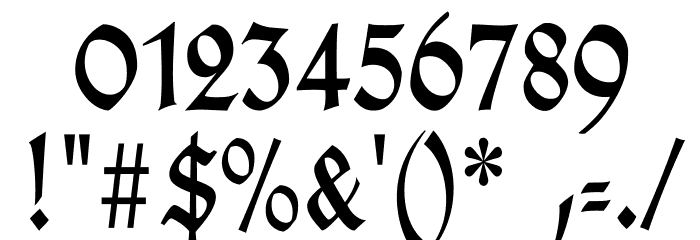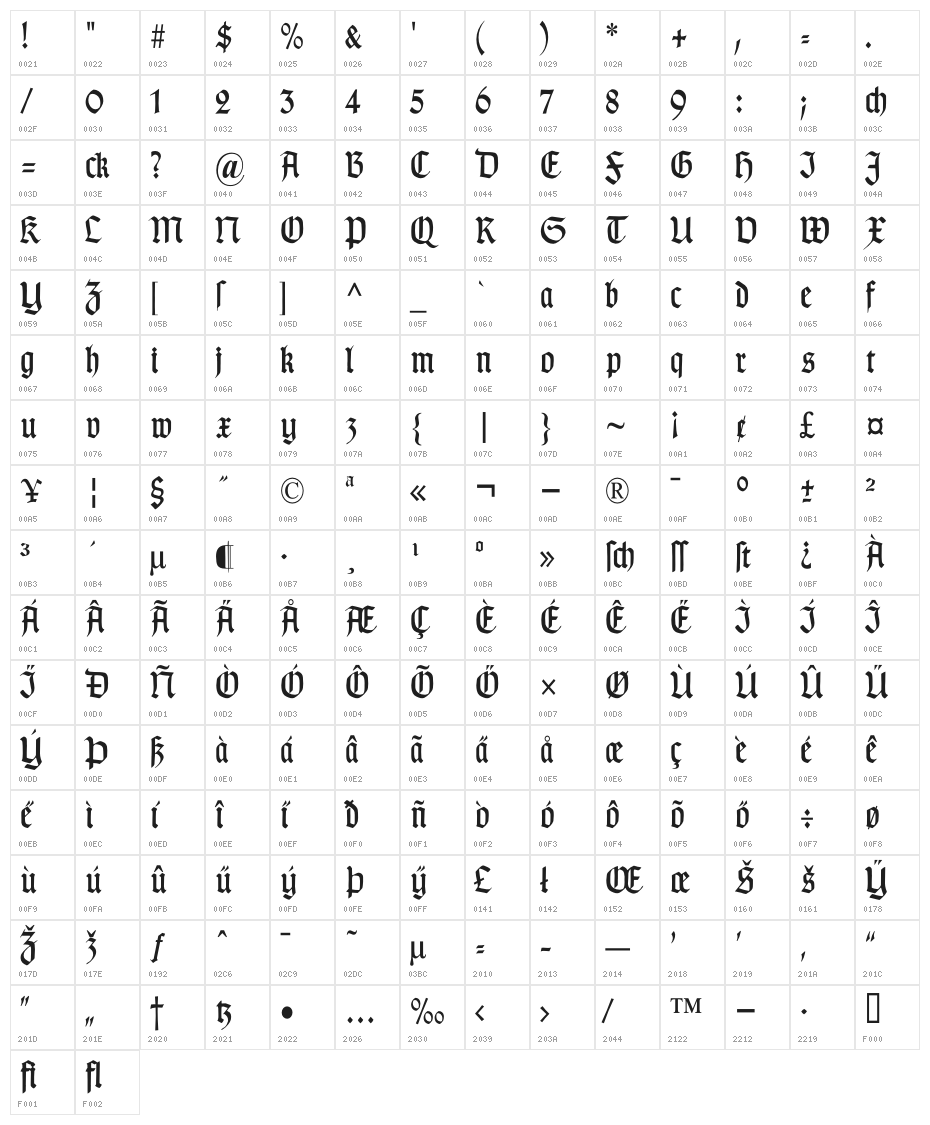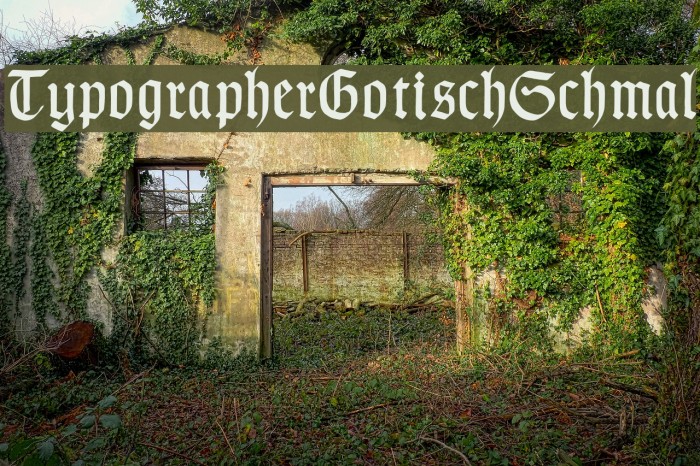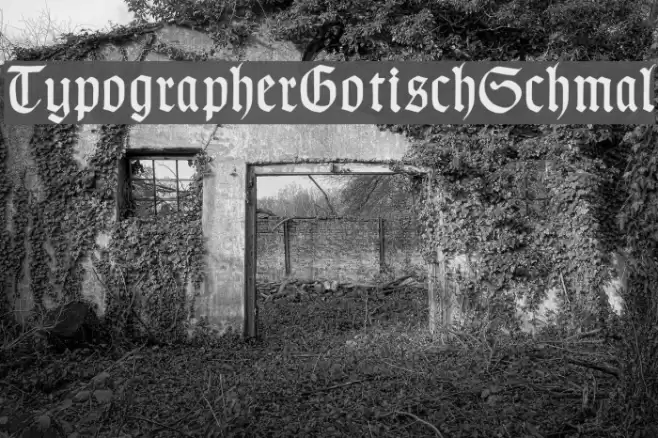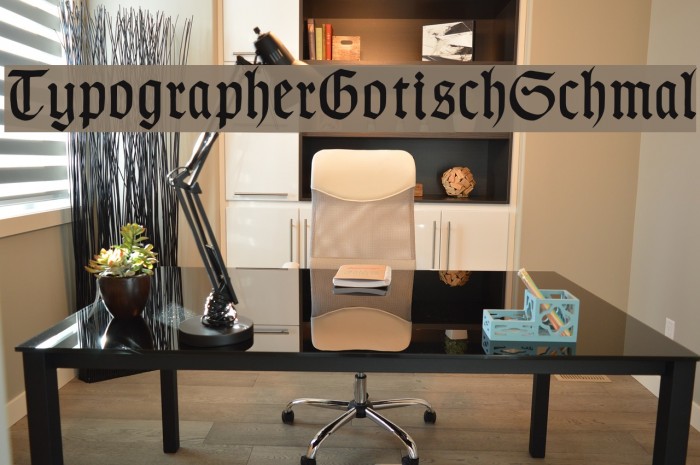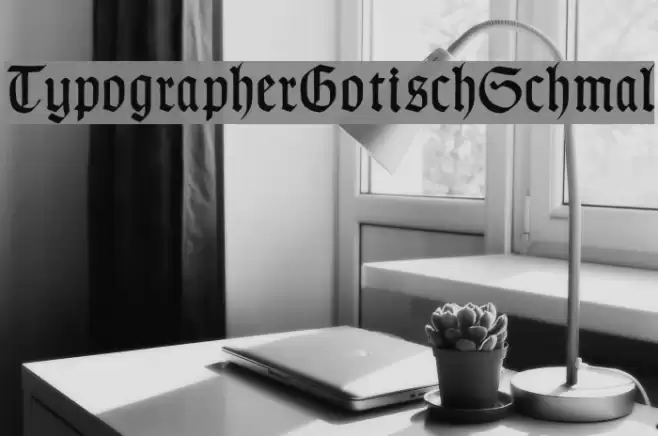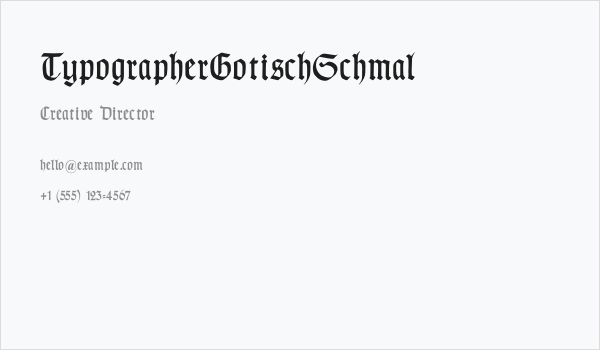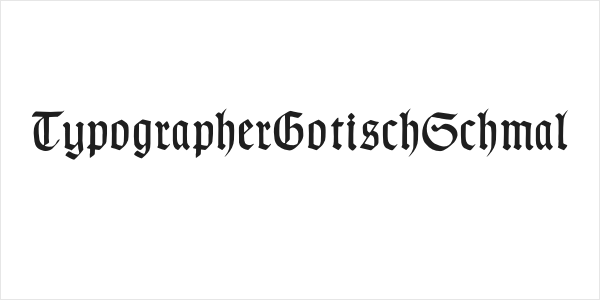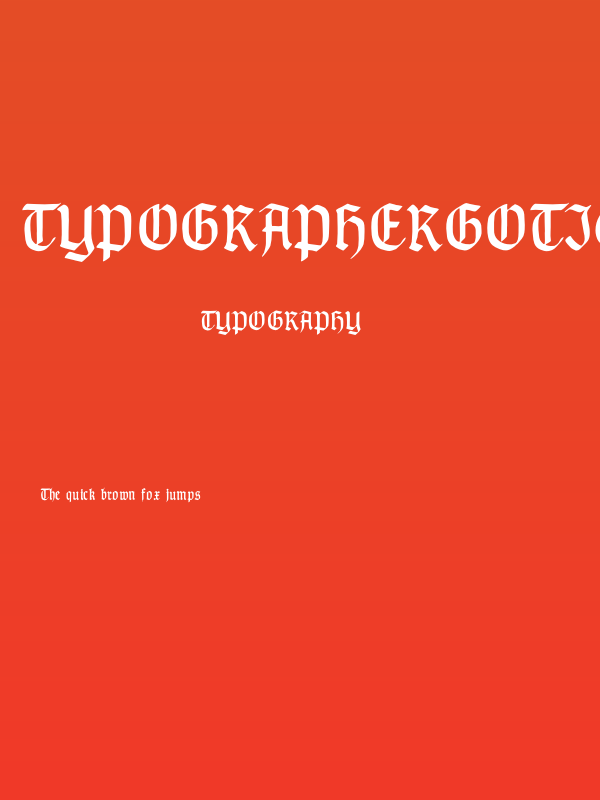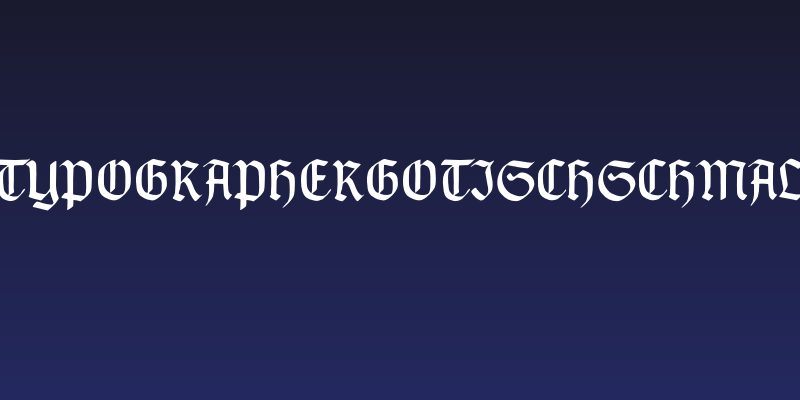
TypographerGotischSchmal Font
TypographerGotischSchmal Description
This font exhibits a traditional blackletter style, characterized by its intricate and ornate letterforms. The strokes are bold and angular, with sharp serifs and a distinct medieval aesthetic. The uppercase letters are tall and commanding, while the lowercase letters maintain a consistent flow with pointed arches and curves. The numerals are equally stylized, featuring unique shapes that complement the overall gothic theme. Special characters are designed with the same attention to detail, enhancing the font's decorative appeal. This typeface is perfect for projects that require a historical or dramatic touch, such as event posters, book covers, or branding for luxury products.